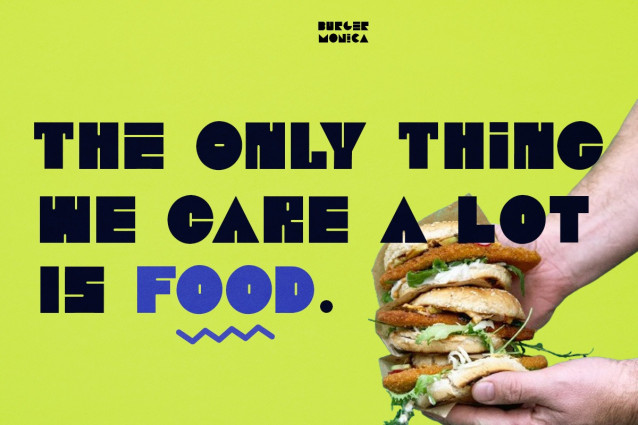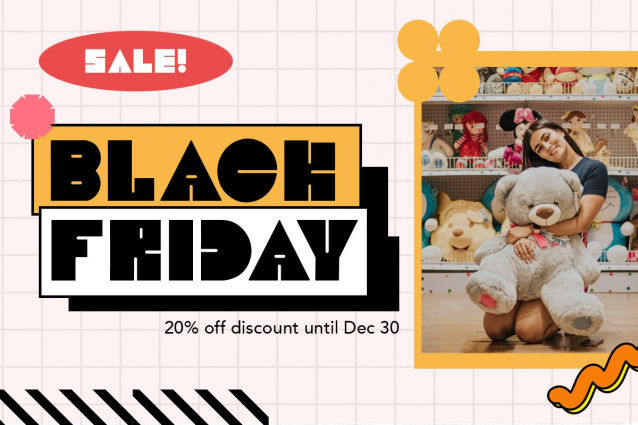
Kairo Geometric Font
Kairo Geometric Font is a geometric font based on simple geometric shapes that has bold and modern character. This font also has a retro, nostalgic yet modern style that will bring nostalgic memories. This font will be perfect for logo, eye-catching headlines, posters, brandings, and other design that has a sense of dynamic and positive vibes.